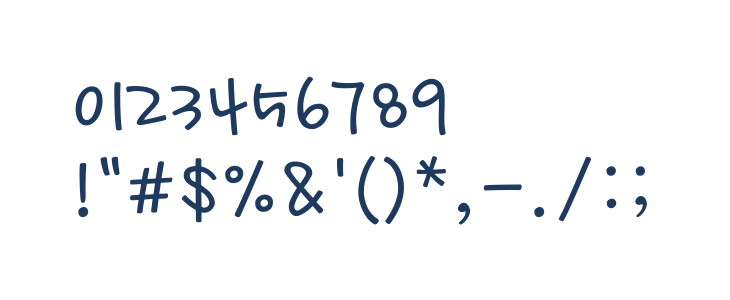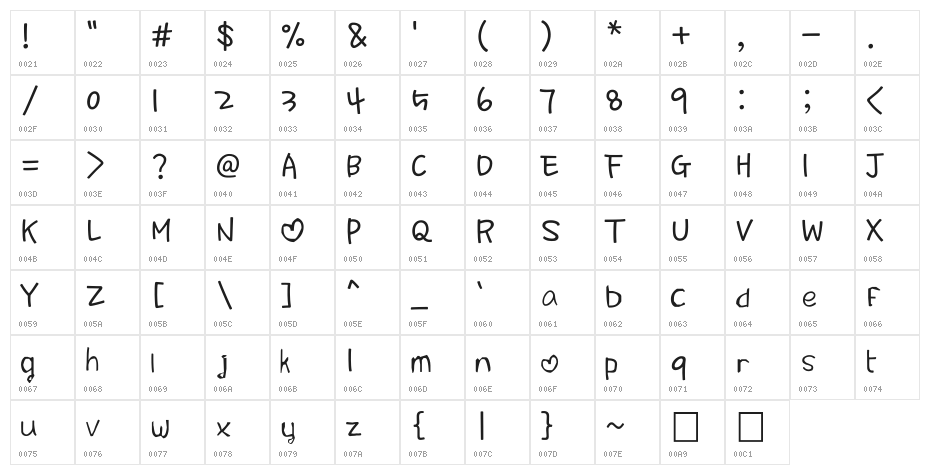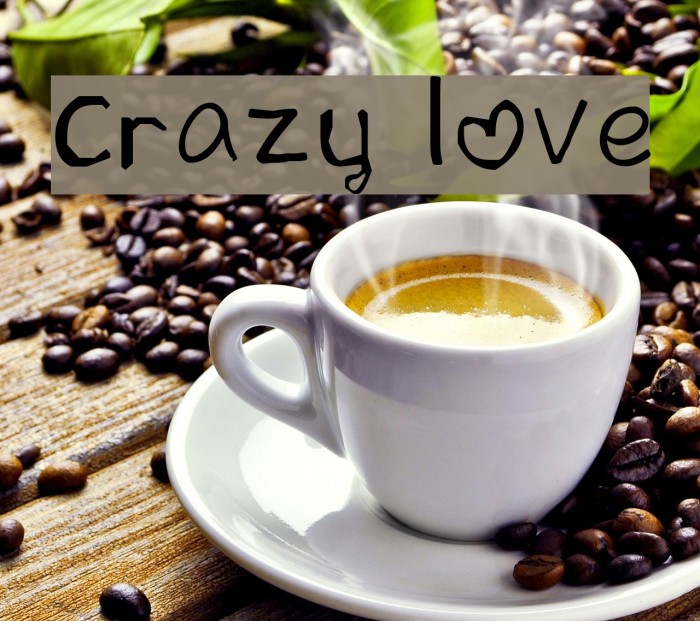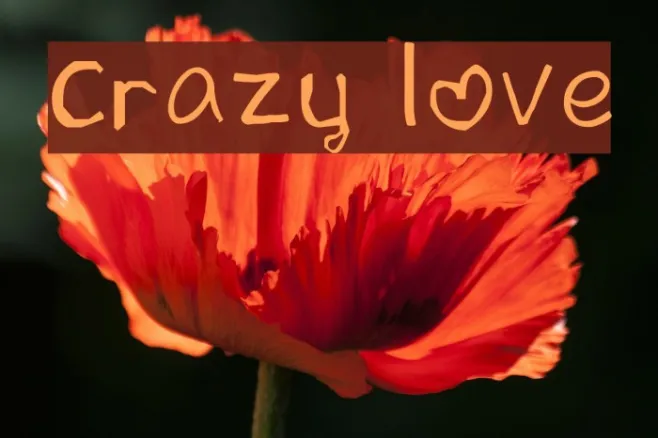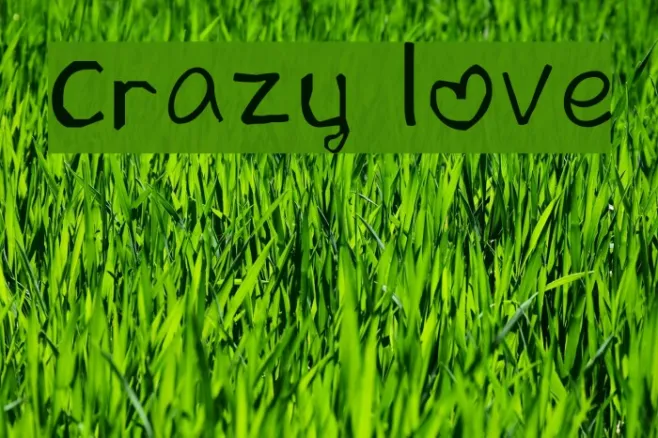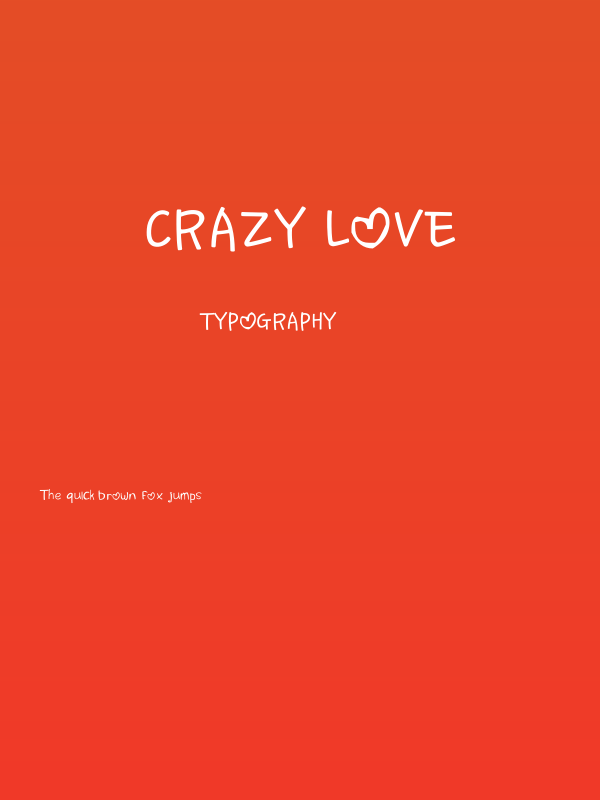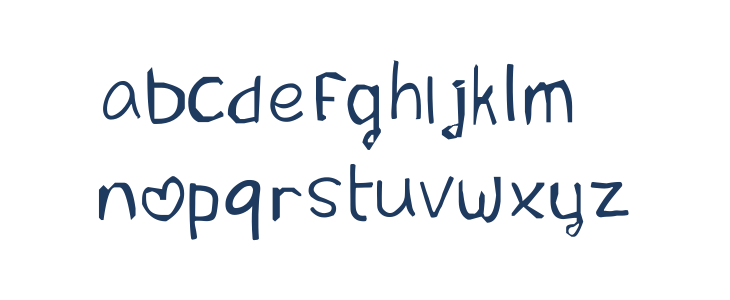
crazy love Font
crazy love Description
This playful and whimsical font features a hand-drawn style with uneven strokes and a casual appearance. The characters are slightly irregular, giving it a charming and informal look. The uppercase letters are bold and prominent, while the lowercase letters maintain a consistent flow with quirky elements, such as the heart-shaped 'o'. The numbers and special characters follow the same playful theme, making it suitable for creative and fun projects. The overall design conveys a sense of spontaneity and joy, perfect for capturing attention in a light-hearted manner.
| Proposed Projects | Ideal for children's books, greeting cards, playful branding, and casual invitations. |